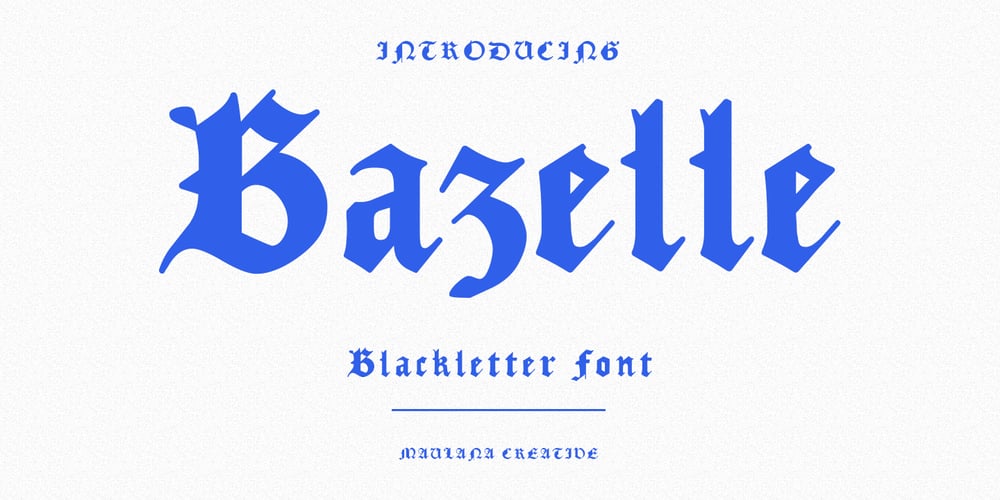
MC Bazelle Font Family was designed by Gilang Maulana and published by Maulana Creative. MC Bazelle contains 1 styles and family package options. Bazelle is a modern experimental blackletter font. With medium low contrast stroke, fun character with a bit of ligatures and alternates. To give you an extra creative work. Bazelle font support multilingual more than 100+ language. This font is good for logo design, Social media, Movie Titles, Books Titles, a short text even a long text letter and good for your secondary text font with sans or serif. Make a stunning work with Bazelle font. Cheers, Maulana Creative